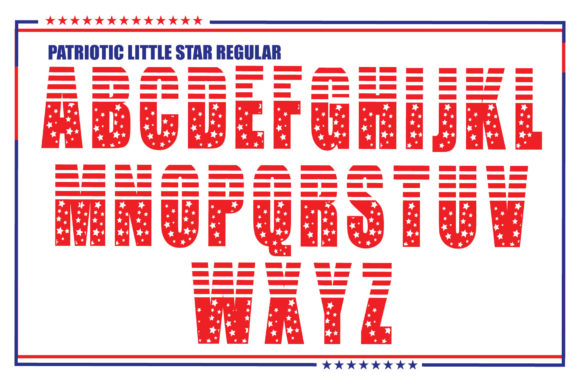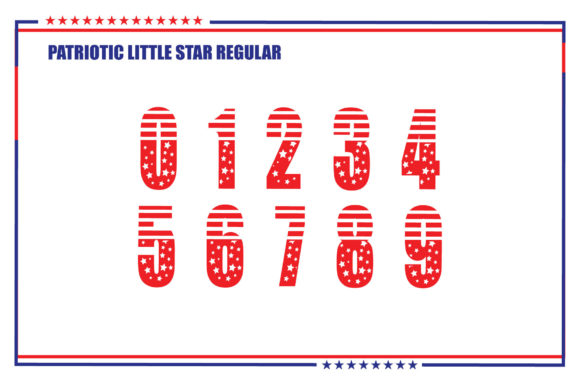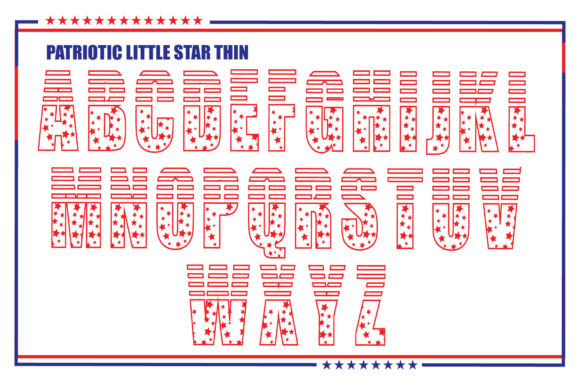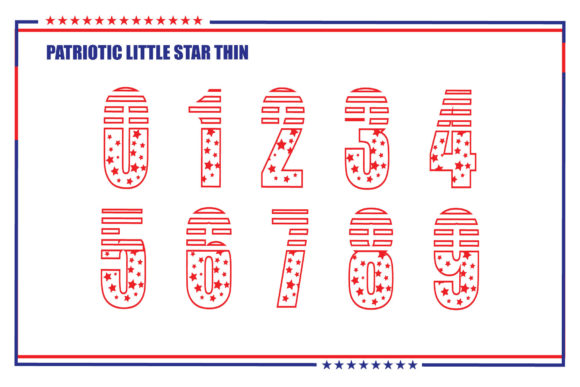
Introduction to Patriotic Little Star Font Font
Fonts play a crucial role in design, and the Patriotic Little Star Font font is a typeface that brings both character and versatility to any project. Whether you’re working on a branding project, a website, or a print design, the Patriotic Little Star Font font offers a unique style that can elevate your work.
Patriotic Little Star is a bold, incredibly cool, and festive decorative font.
It can be used for various design ideas related to speed, sports, or festivities Have fun with this beautiful font and explore its endless variations.
Key Features of Patriotic Little Star Font Font
Why Choose Patriotic Little Star Font Font?
The Patriotic Little Star Font font is more than just a typeface – it’s a design tool that helps you communicate your message with style and clarity. Its unique character set and versatile design make it suitable for a wide range of applications, from elegant invitations to bold headlines.
With its carefully crafted letterforms and balanced proportions, the Patriotic Little Star Font font ensures readability and visual appeal across all mediums.
What makes Patriotic Little Star Font font special?
The Patriotic Little Star Font font stands out with its unique design, exceptional readability, and versatility across various design applications.